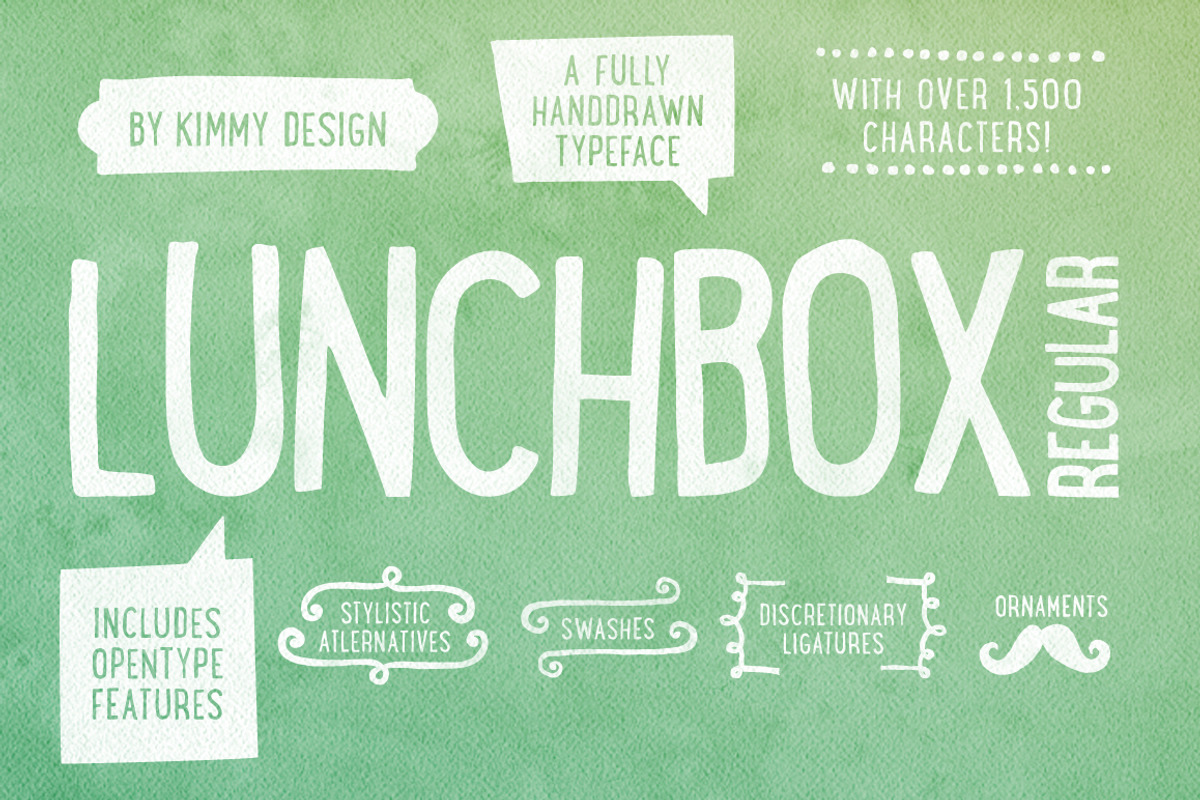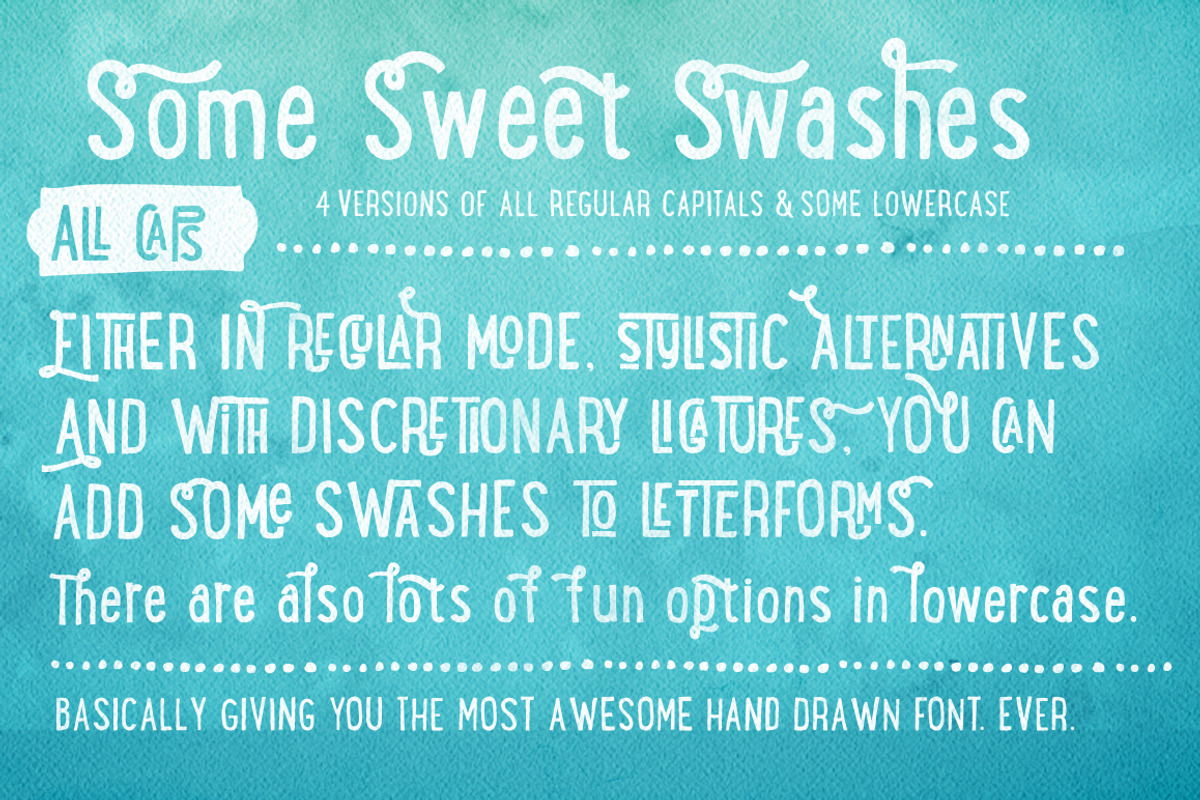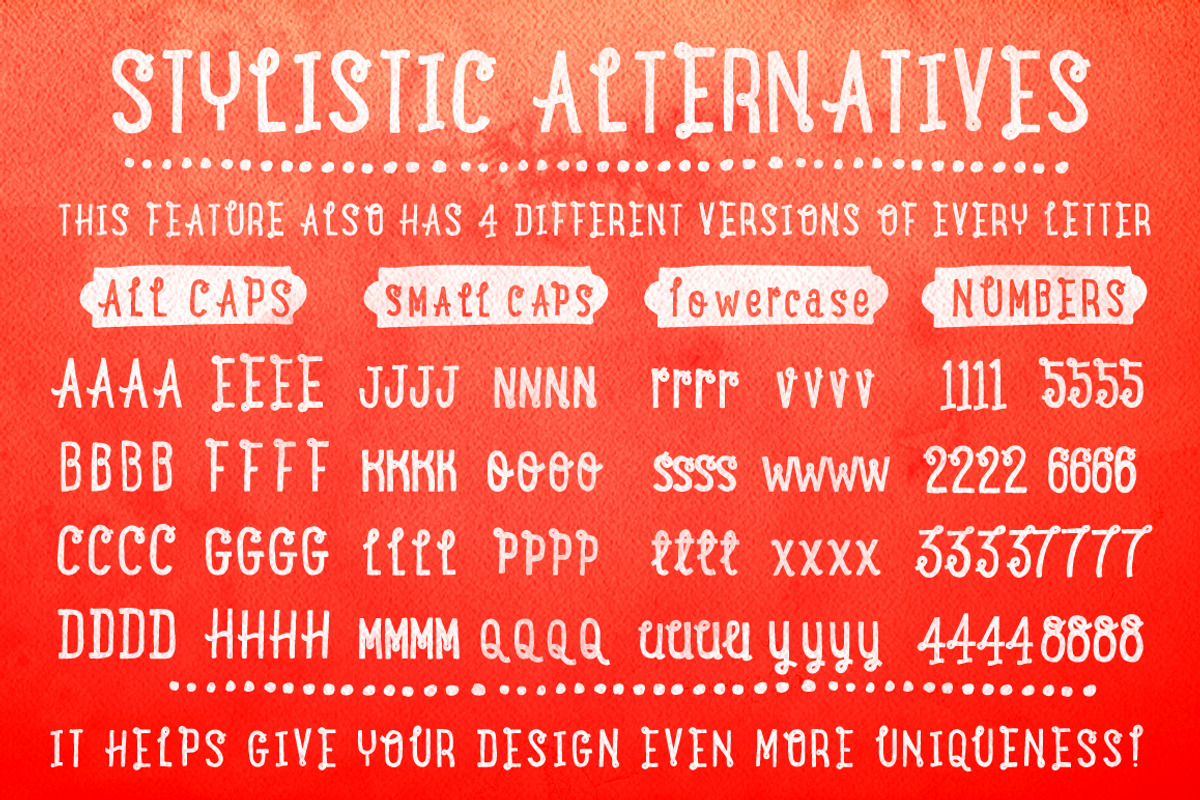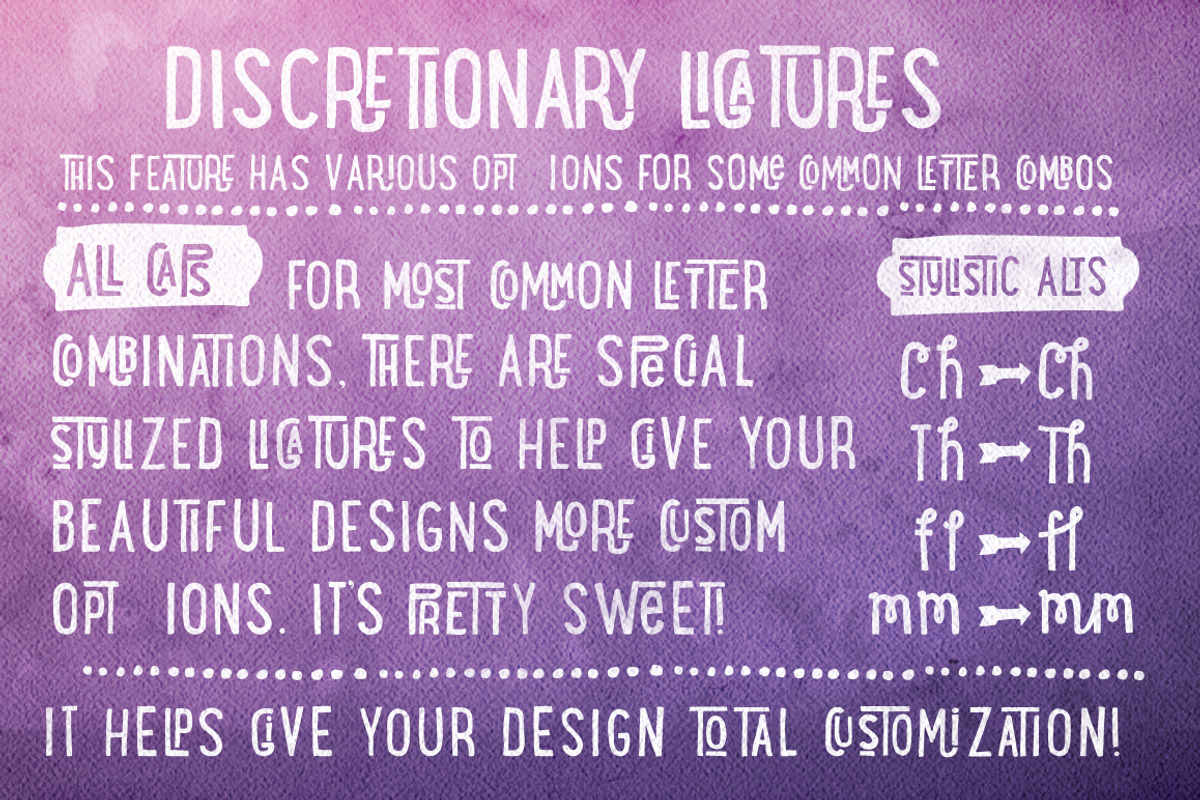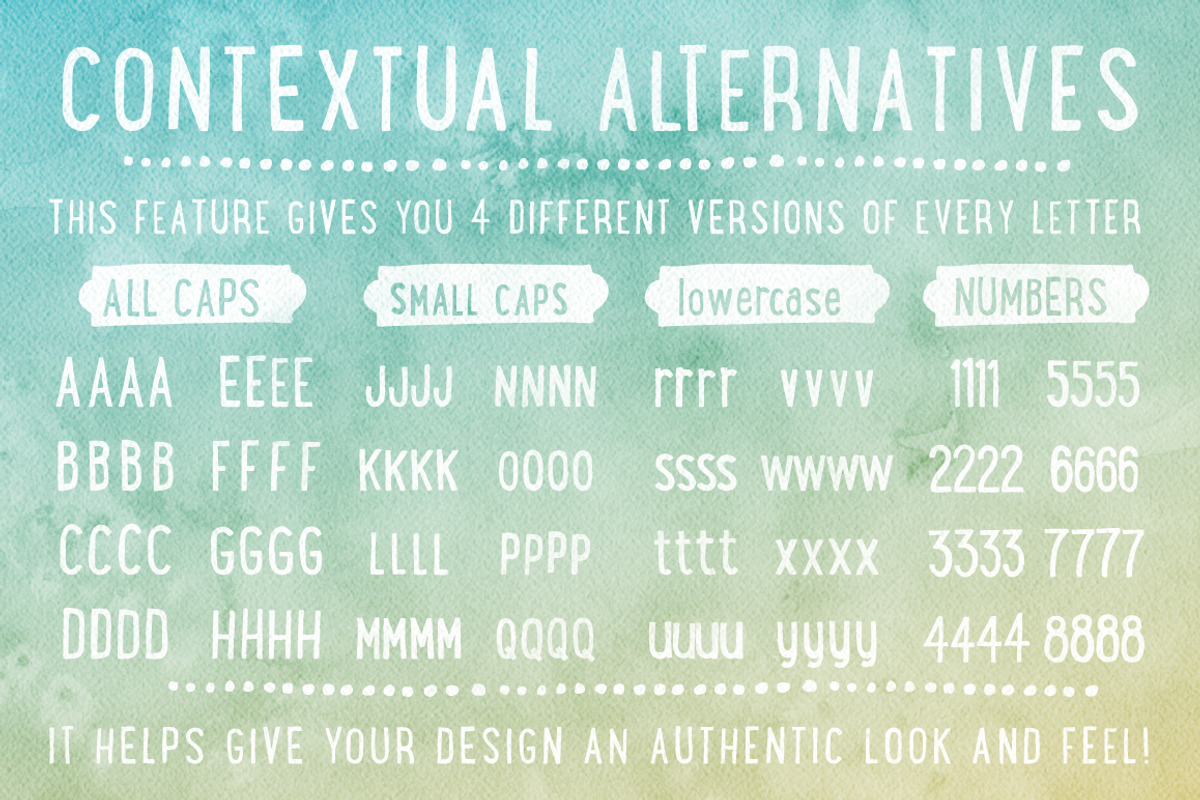
LUNCHBOX Regular +Webfont
LUNCHBOX Regular +Webfont by Kimmy Design is a font selected for branding, posters, packaging, typography.
- Using Lunchbox’s Opentype features gives access to over 1,500 different characters and basically creates 3 different font styles.
- Discretionary ligatures pertain to both regular all caps Lunchbox as well as stylistic alternatives.
- It takes special letters and gives a unique interaction with the characters around them, giving your design a unique and personalized look.
- Swashes also have four style variations to both the regular and stylistic alternatives, as well as lowercase letters with ascenders and desc
Why LUNCHBOX Regular +Webfont is worth a look
LUNCHBOX Regular +Webfont by Kimmy Design fits naturally into Branding, posters, packaging, typography.